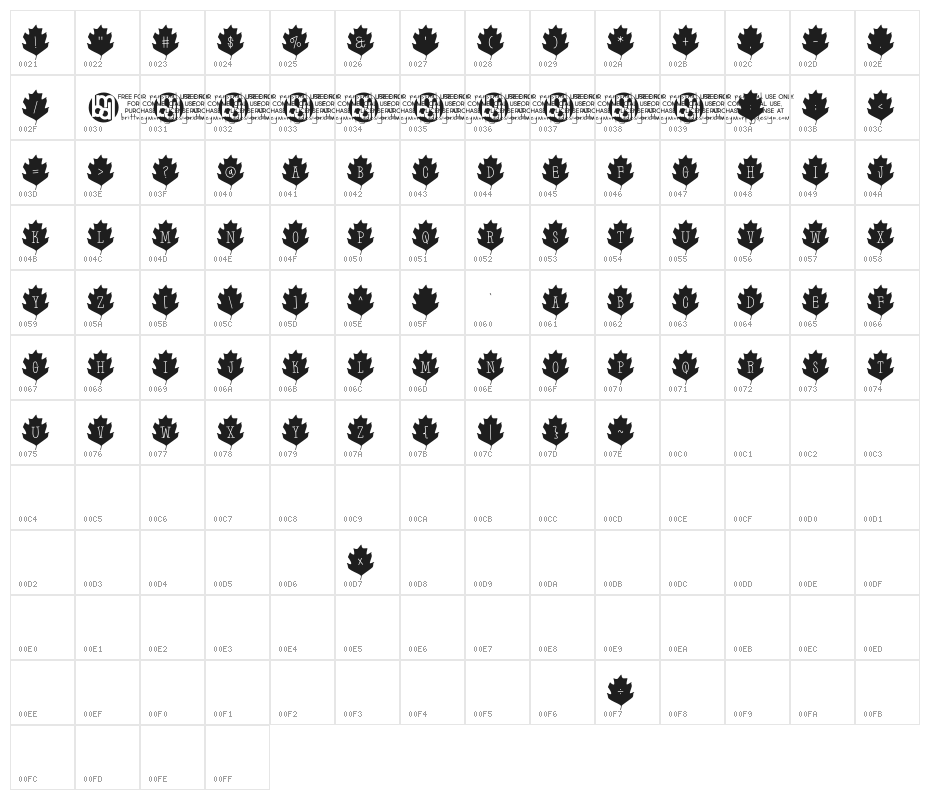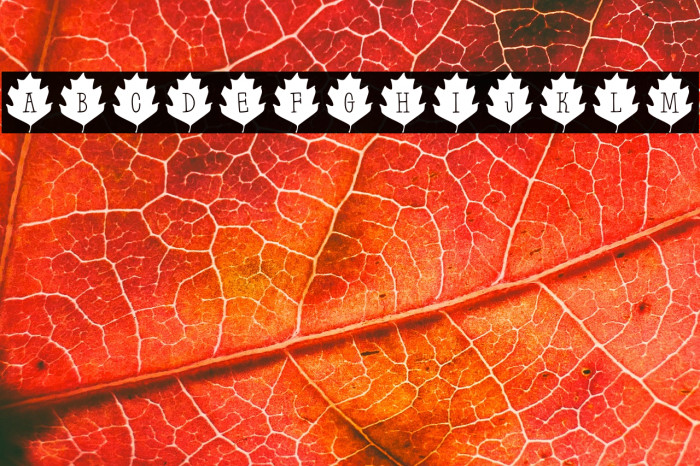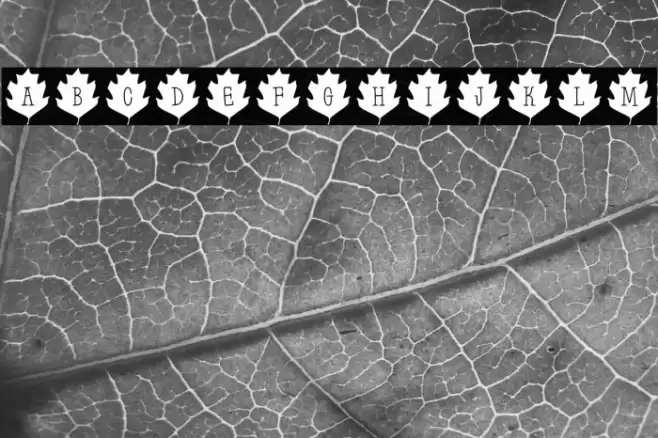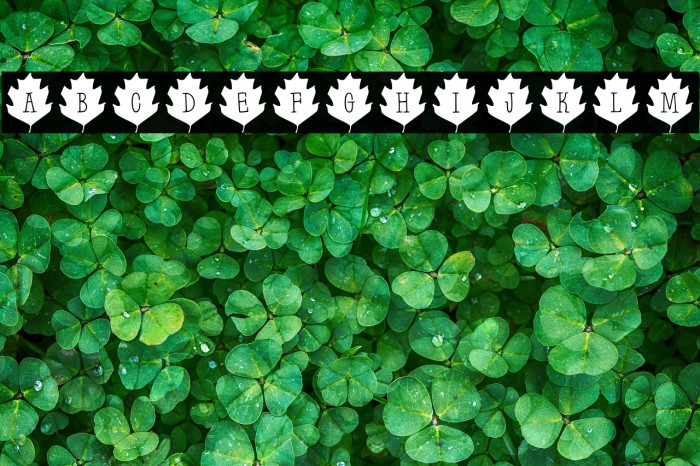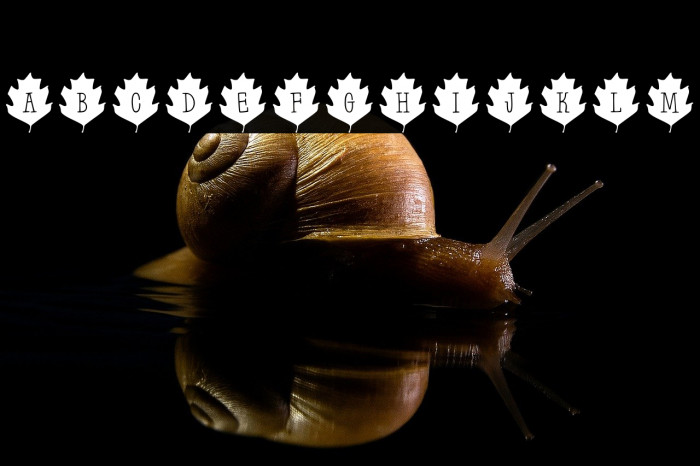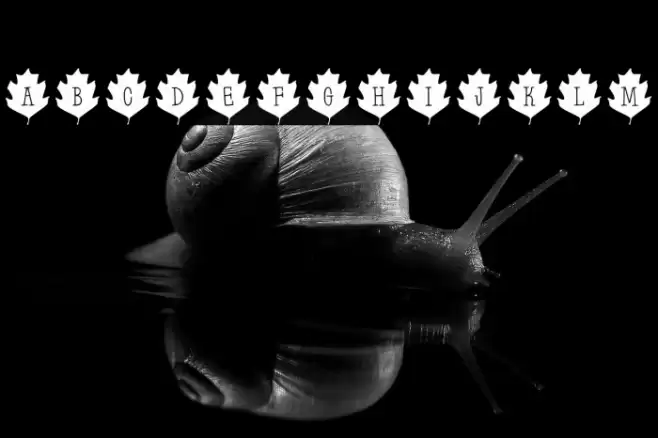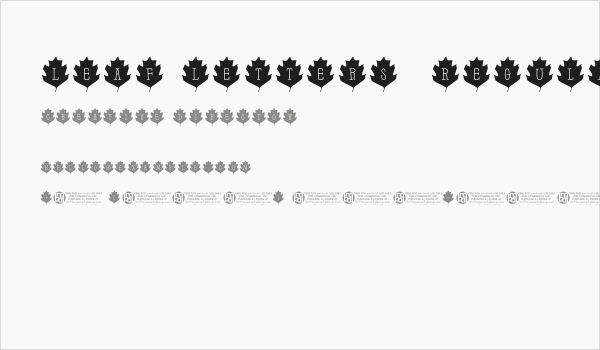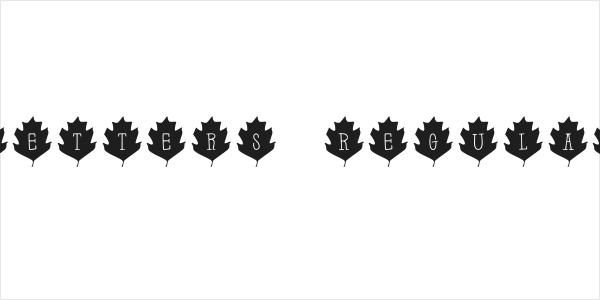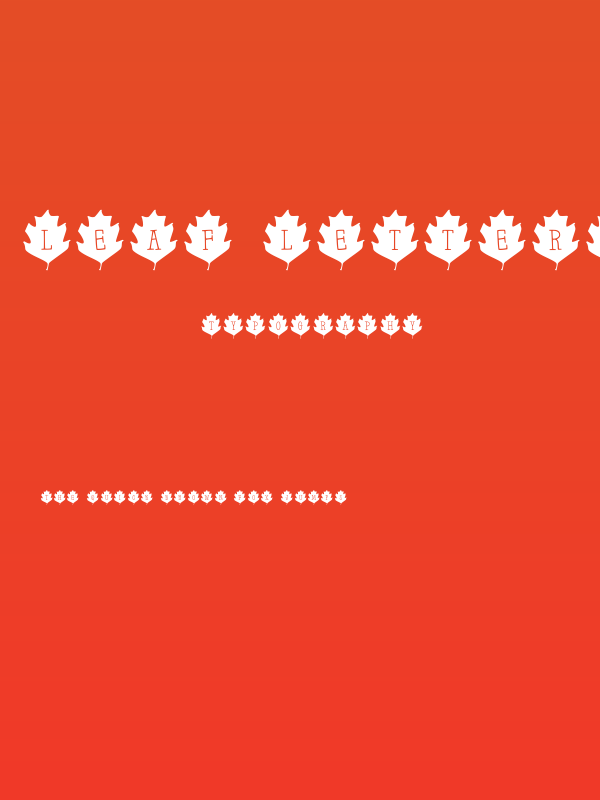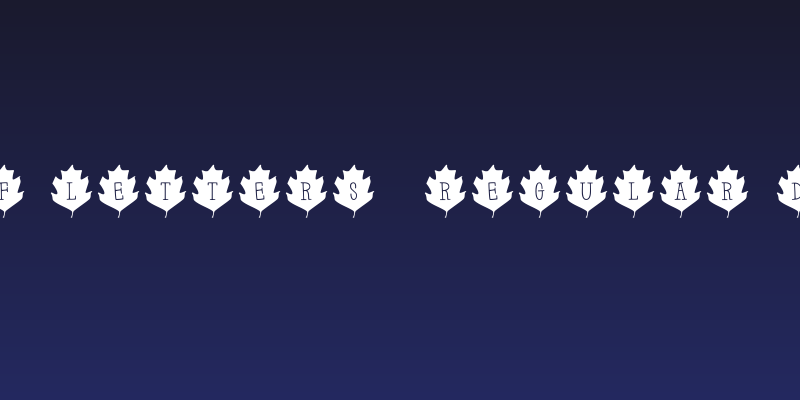
Leaf Letters Regular Demo Font
Leaf Letters Regular Demo Description
This unique font features characters embedded within the silhouette of a leaf, creating a distinct and nature-inspired aesthetic. Each letter and symbol is centered within a bold, black leaf shape, providing a strong visual impact. The font maintains a consistent style across uppercase letters, lowercase letters, numbers, and special characters, all of which are enclosed in the same leaf design. The characters themselves are serif, adding a touch of classic elegance to the otherwise playful and decorative style. This font is ideal for projects that require a nature-themed or whimsical touch, while still maintaining readability.
| Use Case | Logos, Posters, Invitations |
| Proposed Projects | Ideal for eco-friendly branding, nature-themed event invitations, children's book covers, and decorative posters. |